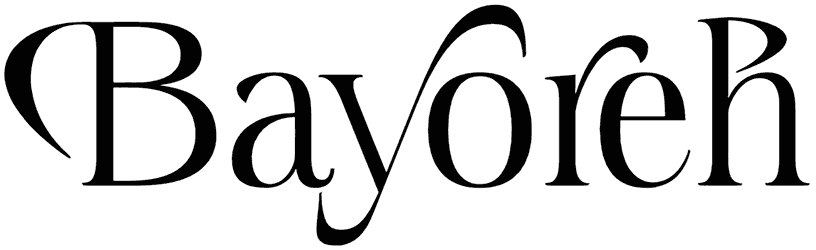
For projects that need to shine, King Victory captures everyone’s attention and interest. The absence of numbers in this luxury font does not hinder its development, so try it and feel professional
Something is startling about the hand-written appearance of the letters in this elegant font. Test it on many posters, covers, magazines, and more, and see how it sounds good and thrives. Bear in mind that hundreds of fonts like this one are in our collection.
King Victory by Nirmana Visual,